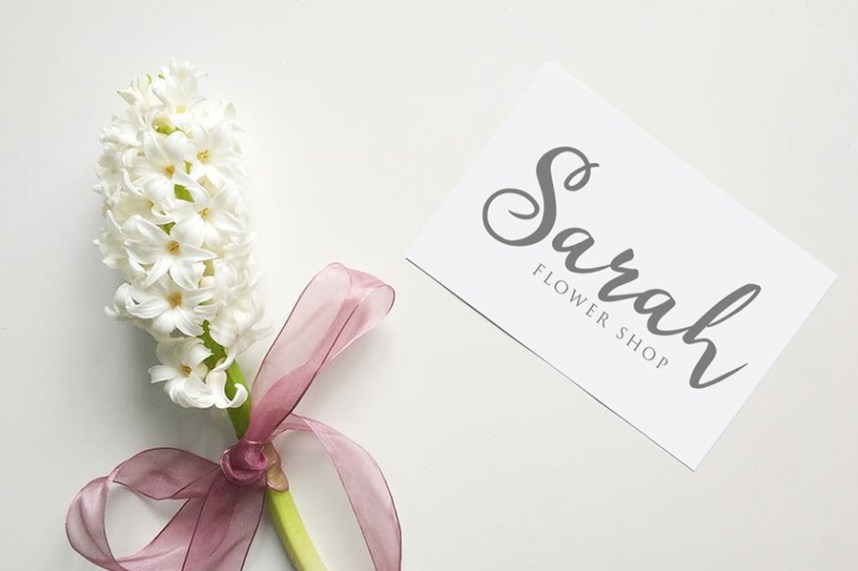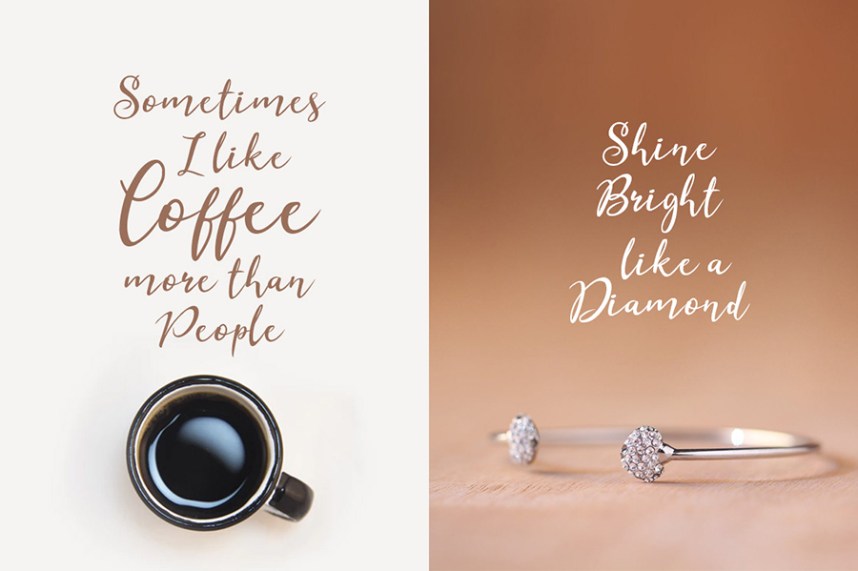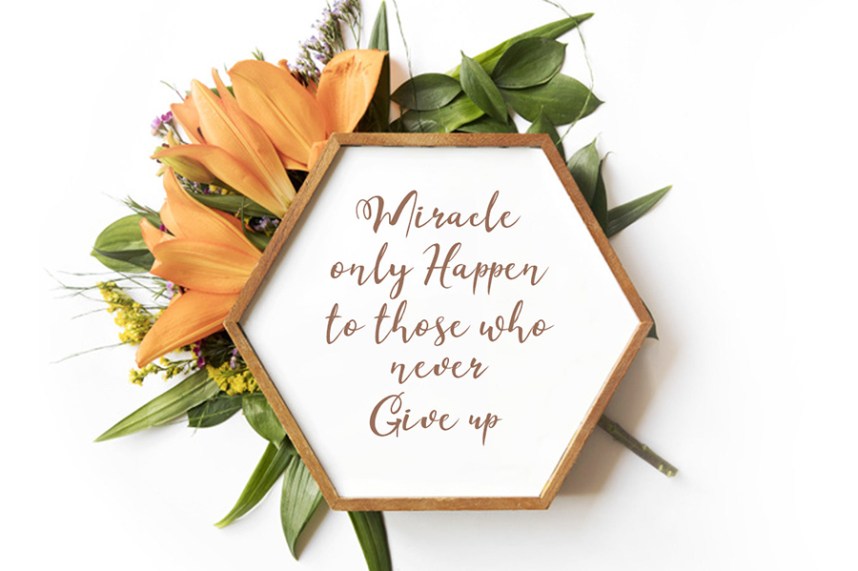
Esteh Script Font – 100% Free Font
A modern calligraphy typeface. Introducing Esteh Font! It is designed and shared by khurasan. A contemporary font with fashionable and elegant script style. imperfect style ups and downs, like a dance letters, smooth, clean and simple. Perfect for wedding, event, invitation, escort card, table number, header menus, display, logos, slider blog, custom address, stamps, packaging, greeting card, etc.